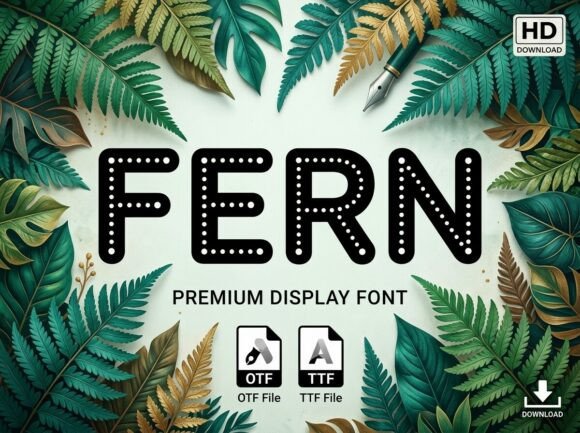
Fern Font: Elevate Your Designs with a Stunning Decorative Display Font
Are you tired of using the same old fonts in your designs? Do you want to add a touch of uniqueness and creativity to your work? Look no further than the Fern Font, a stunning decorative display font that’s designed to be the center of attention. With its unique artistic elements and strong visual personality, this font is perfect for creators who want to break away from the ordinary and take their designs to the next level.
What Makes Fern Font So Special?
Fern Font is a versatile decorative font that’s specifically designed for bold headlines, artistic logos, and creative packaging. Its unique artistic elements and strong visual personality make it perfect for a wide range of design applications, from branding and advertising to packaging and signage. Whether you’re a graphic designer, crafty DIY enthusiast, or social media influencer, Fern Font is the perfect addition to your design toolkit.
Key Features of Fern Font
- Unique Artistic Elements: Fern Font features unique artistic elements that set it apart from other fonts. Its intricate details and decorative flourishes make it perfect for designs that require a touch of elegance and sophistication.
- Strong Visual Personality: This font has a strong visual personality that’s sure to grab attention. Its bold and eye-catching design makes it perfect for headlines, titles, and other display text.
- Versatile: Fern Font is versatile enough for a wide range of design applications, from bold headlines and artistic logos to creative packaging and signage.
- Professional and Polished Finish: Despite its decorative nature, Fern Font maintains a professional and polished finish that’s perfect for designs that require a touch of sophistication.
Who is Fern Font For?
Fern Font is perfect for a wide range of designers and crafters, including:
- Graphic Designers: If you’re a graphic designer looking for a unique and eye-catching font to add to your toolkit, Fern Font is the perfect choice.
- Crafty DIY Enthusiasts: If you’re a crafty DIY enthusiast who loves to create handmade cards, gifts, and other projects, Fern Font is a great addition to your design arsenal.
- Social Media Influencers: If you’re a social media influencer looking for a way to add a touch of creativity and uniqueness to your posts and stories, Fern Font is the perfect solution.
- Use it for Headlines and Titles: Fern Font is perfect for headlines and titles, where its bold and eye-catching design can really make an impact.
- Experiment with Different Colors: Fern Font looks great in a wide range of colors, so don’t be afraid to experiment and find the perfect color for your design.
- Pair it with Other Fonts: Fern Font pairs well with a wide range of other fonts, so feel free to get creative and experiment with different font combinations.